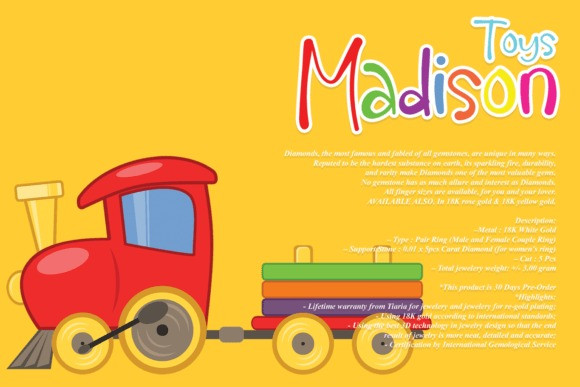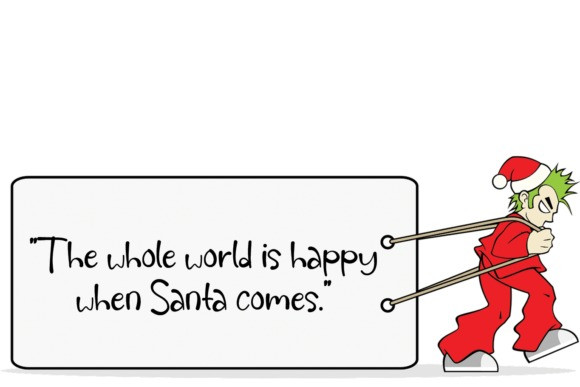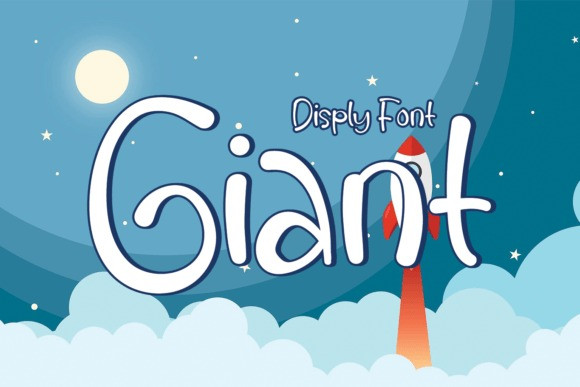
Giant Playful Font
Giant Playful Font is a cute display font. Clean and a little bit quirky, this font is the perfect fit for all of your logos, branding, social media, and crafty DIY projects.